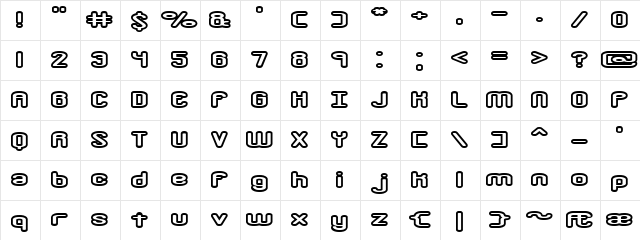
Crackdown O1 (BRK) Regular
Design Context for Crackdown O1 (BRK) Typeface
Crackdown O1 (BRK) offers clean, dependable letterforms without strong stylistic allegiance, making it a practical choice for designers who need flexibility.
Pro Tip: Use Crackdown O1 (BRK) in both headline and body roles to test its range before committing to a single application.